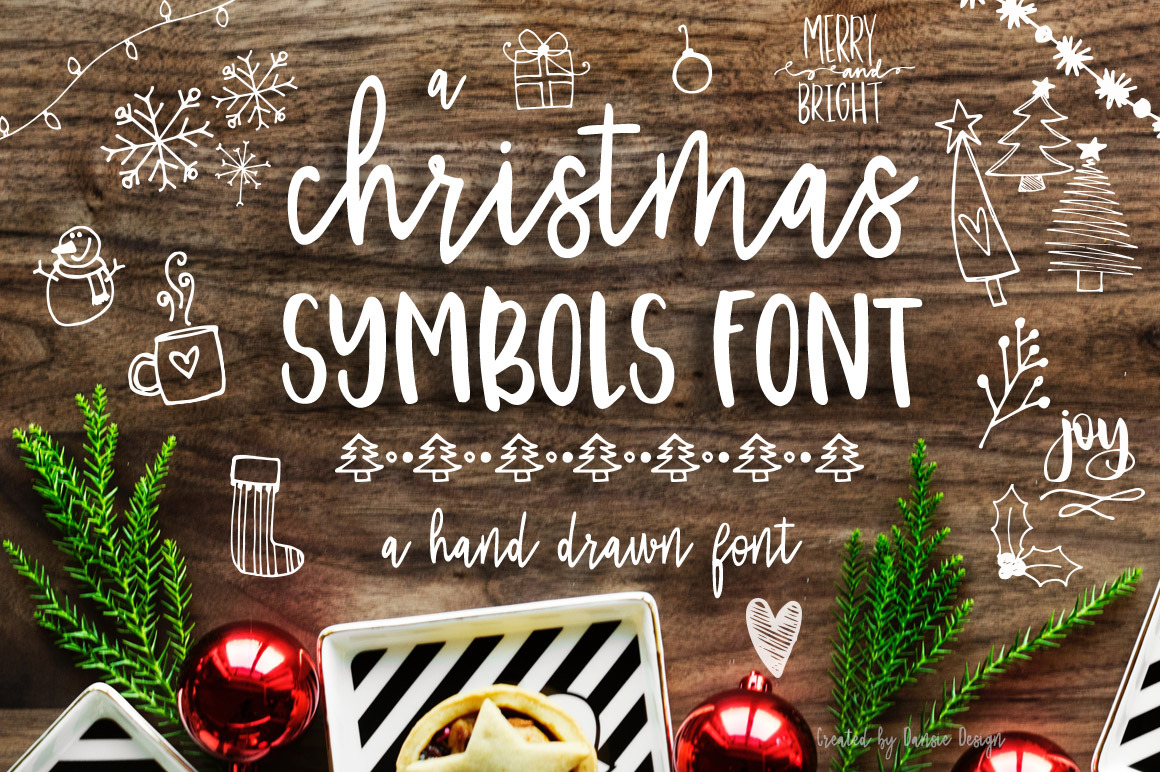
Christmas Symbols Font
A Christmas themed hand drawn doodles font just in time for the Holiday season!
Just type in any letter - uppercase or lowercase - and you will be surprised with a cute Christmas doodle! You can use these doodles to decorate pictures, Christmas cards, gift tags, social media posts, or anything you can dream up!